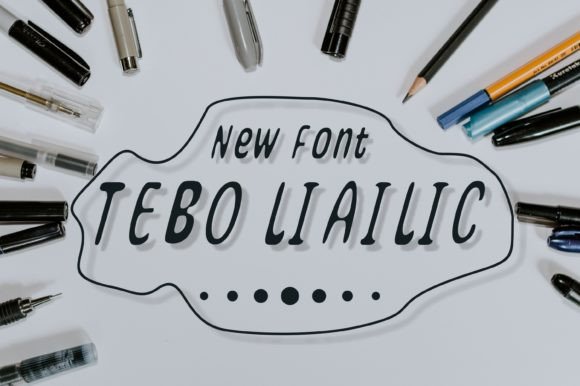
In a world saturated with monotonous designs, Tebo Font emerges as a beacon of distinction, an artistic masterpiece crafted to elevate your creative expressions to breathtaking heights. This remarkable display font, designed by the visionary mhd.usman00, is a symphony of elegance and functionality, a versatile tool that caters to all your design endeavors.
With Tebo Font, you unlock a universe of design possibilities, from captivating magazine layouts that dance with visual intrigue to enchanting crafts that radiate a handmade charm. Its meticulously crafted characters, each a work of art in their own right, harmoniously blend aesthetics and functionality, ensuring your messages are not just seen but felt.
Embark on a creative odyssey with Tebo Font as your trusted companion. Let your imagination soar as you transform ordinary designs into extraordinary masterpieces. Its carefully selected glyphs and remarkable ligatures provide endless opportunities to weave captivating typographic tapestries that resonate with individuality and style.
Unleash your creativity and let Tebo Font ignite the fire of inspiration within you. Its enchanting curves and daring angles will captivate your audience, leaving them spellbound by the visual masterpiece you've created. Join countless design enthusiasts who have embraced Tebo Font as their secret weapon, propelling their projects to dizzying heights of success.